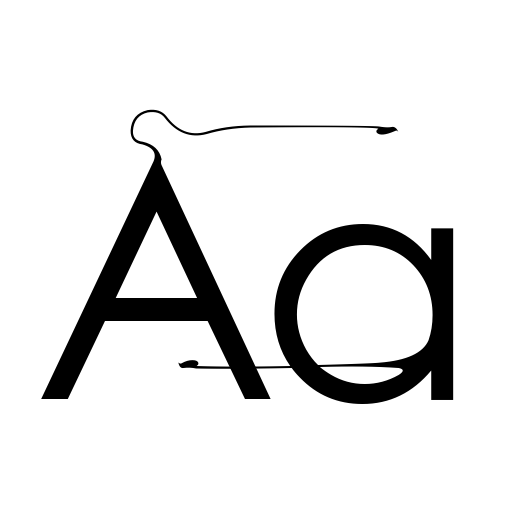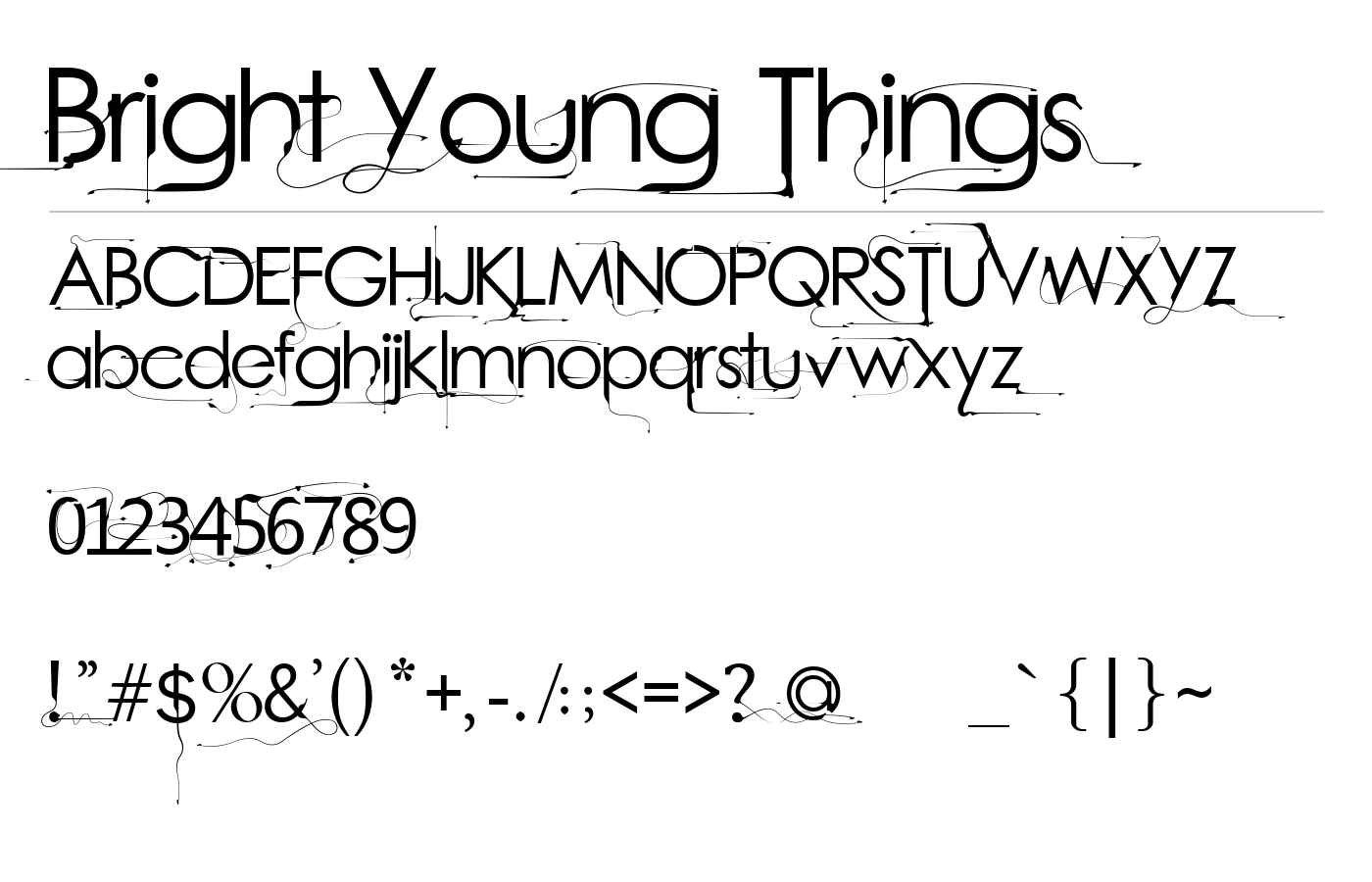
Bright Young Things is a sleek, modern sans serif font with a playful twist, characterized by its delicate, fine strokes and whimsical extended swashes that add an artistic flair. Its light weight and airy structure make it ideal for creative branding, fashion, and editorial projects where a stylish yet sophisticated look is desired. This font shines in headlines and display uses, bringing a unique blend of elegance and youthful energy to any design.
Bright Young Things Font
About Bright Young Things Font
| Designer | hugo beyts |